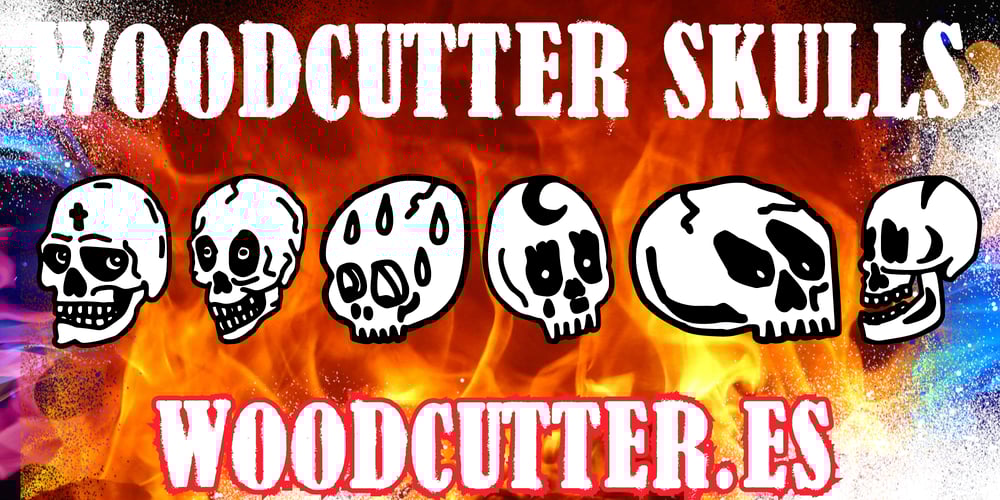
Woodcutter Skulls Font Family was designed by Jordi Manero and published by Woodcutter. Woodcutter Skulls contains 1 styles and family package options. “Woodcutter Skulls” is a Dingbats typeface featuring a collection of original skull drawings created by Woodcutter Manero. Each skull is a unique piece of art, capturing details and expressions ranging from the macabre to the comical. Perfect for adding a distinctive and rebellious touch to your projects, “Woodcutter Skulls” is ideal for posters, t-shirts, and any design seeking to stand out with a bold and provocative style. With this typeface, each skull tells a story, adding personality and character to your work.